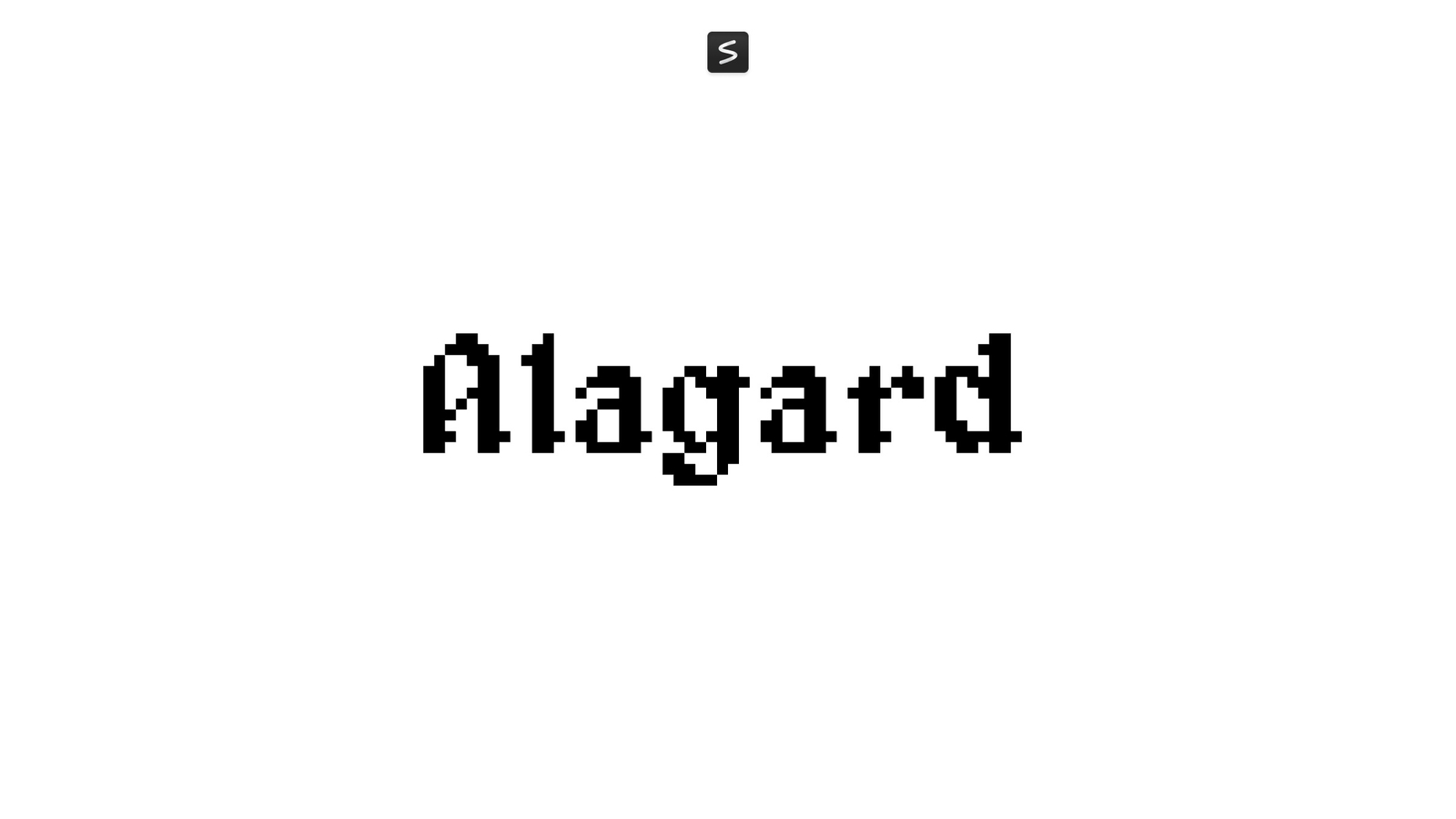
Alagard, designed by Hewett Tsoi, is a fantasy-inspired bitmap font that blends pixel-perfect construction with subtle serif details, giving it the feel of a forgotten manuscript rendered on a CRT. Its slightly tall, pointed letterforms instantly bring to mind sword-and-sorcery RPGs, dungeon crawlers, and old PC adventure games.
The font shines in projects that lean into medieval, mystical, or retro fantasy themes. It’s a popular pick for indie game developers building pixel-art RPGs, as well as designers working on tabletop game assets, fantasy posters, or zines that need a little arcane atmosphere.
With its balanced grid and decorative flair, Alagard reads cleanly at small sizes while still feeling unmistakably storybook-like. If you want a pixel font with personality and a hint of magic, Alagard is a fantastic choice.